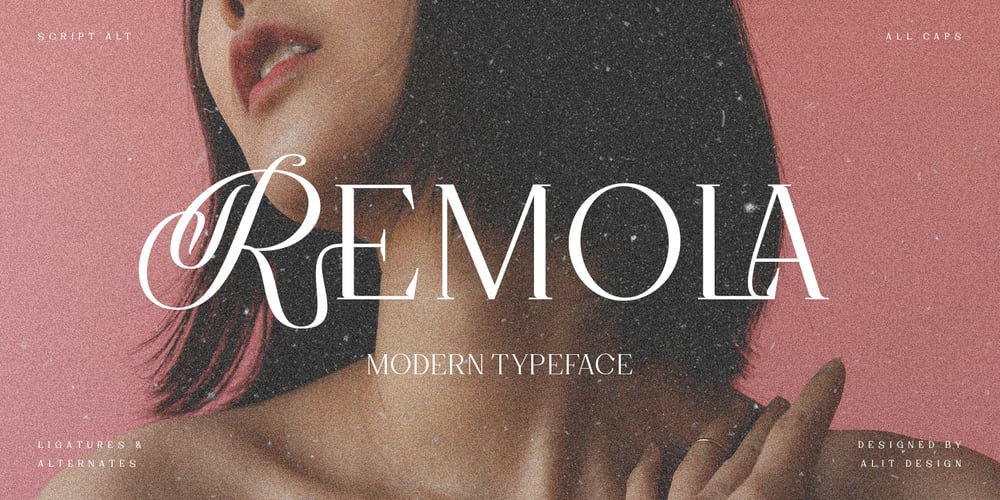
Remola Font Family was designed by Alit Suarnegara and published by Alit Design. Remola contains 1 styles and family package options. Presenting the REMOLA typeface from alitdesign.REMOLA font is designed by combining an elegant script font with a simple and charming serif font style. This font has a modern serif style combined with elegant script-style letters that make the REMOLA font look different and unique from the fonts you have on your element design collection.REMOLA is perfect for magazine cover designs, brochures, flyers. Instagram ads, Canva Design and so on with unique and modern concepts. besides that this font is very easy to use both in design and non-design programs because everything changes and glyphs are supported by Unicode (PUA).The “REMOLA”contains 562 glyphs with many unique and interesting alternative options.Language Support : Latin, Basic, Western European, Central European, South European,Vietnamese. In order to use the beautiful swashes, you need a program that supports OpenType features such as Adobe Illustrator CS, Adobe Photoshop CC, Adobe Indesign and Corel Draw. but if your software doesn’t have Glyphs panel, you can install additional swashes font files.